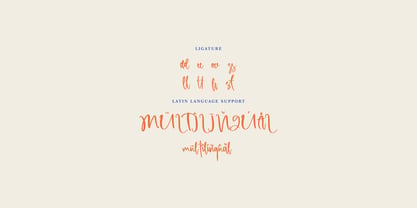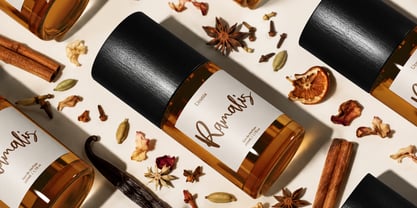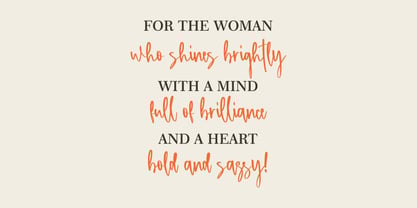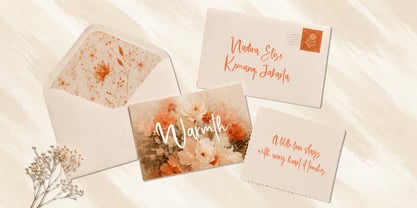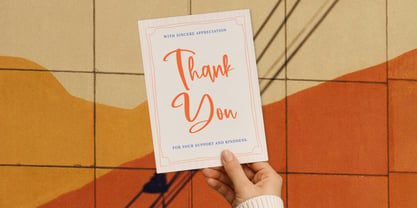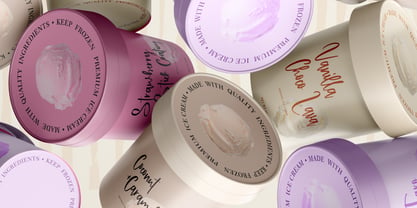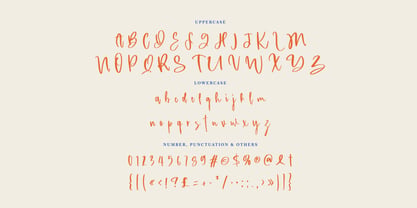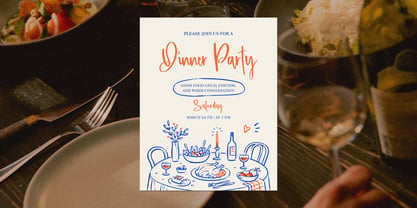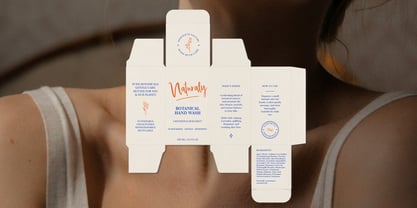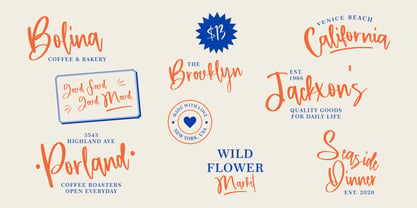
Starbuth
Starbuth : A Modern Script with Graceful Precision
Starbuth is a modern signature script font designed to bring elegance, personality, and an authentic handwritten touch to every creative project. With its graceful curves, fluid strokes, and expressive letterforms, Bathurst creates a stylish yet natural appearance that is perfect for logos, branding, product packaging, invitations, greeting cards, menus, social media content, editorial layouts, and promotional designs.
Featuring uppercase and lowercase characters, numerals, punctuation, beautiful ligatures, and extensive Latin multilingual support,Starbuth offers exceptional versatility for both print and digital applications. Pair it with a refined serif or clean sans-serif typeface for a sophisticated combination, or use it on its own as a captivating statement font. Choose Bathurst to give your designs a distinctive, memorable, and professionally crafted signature style.